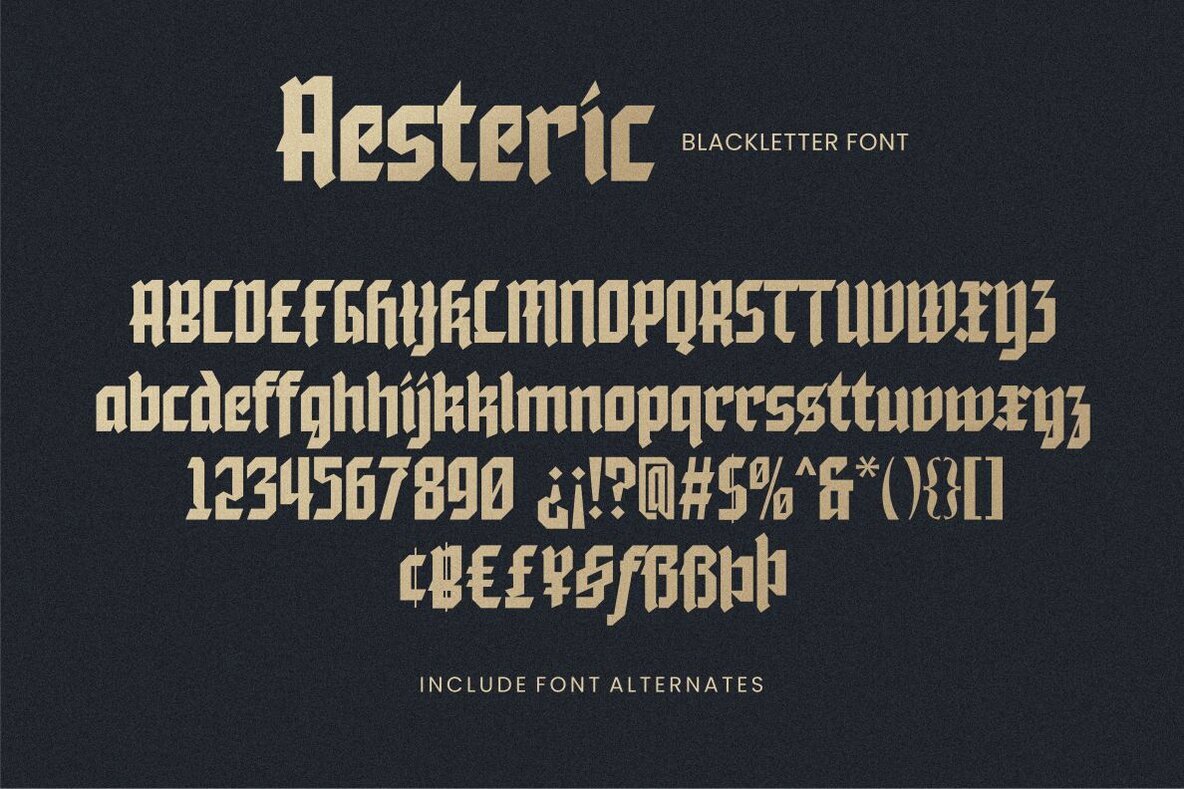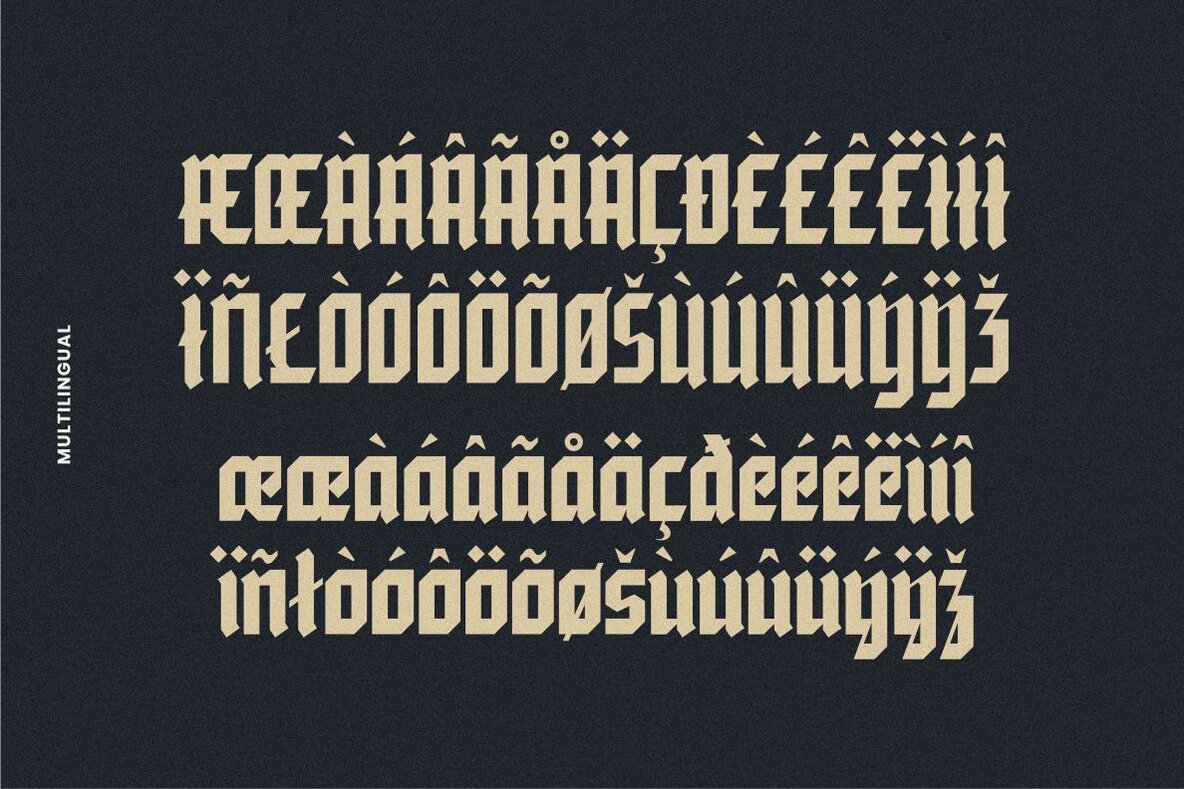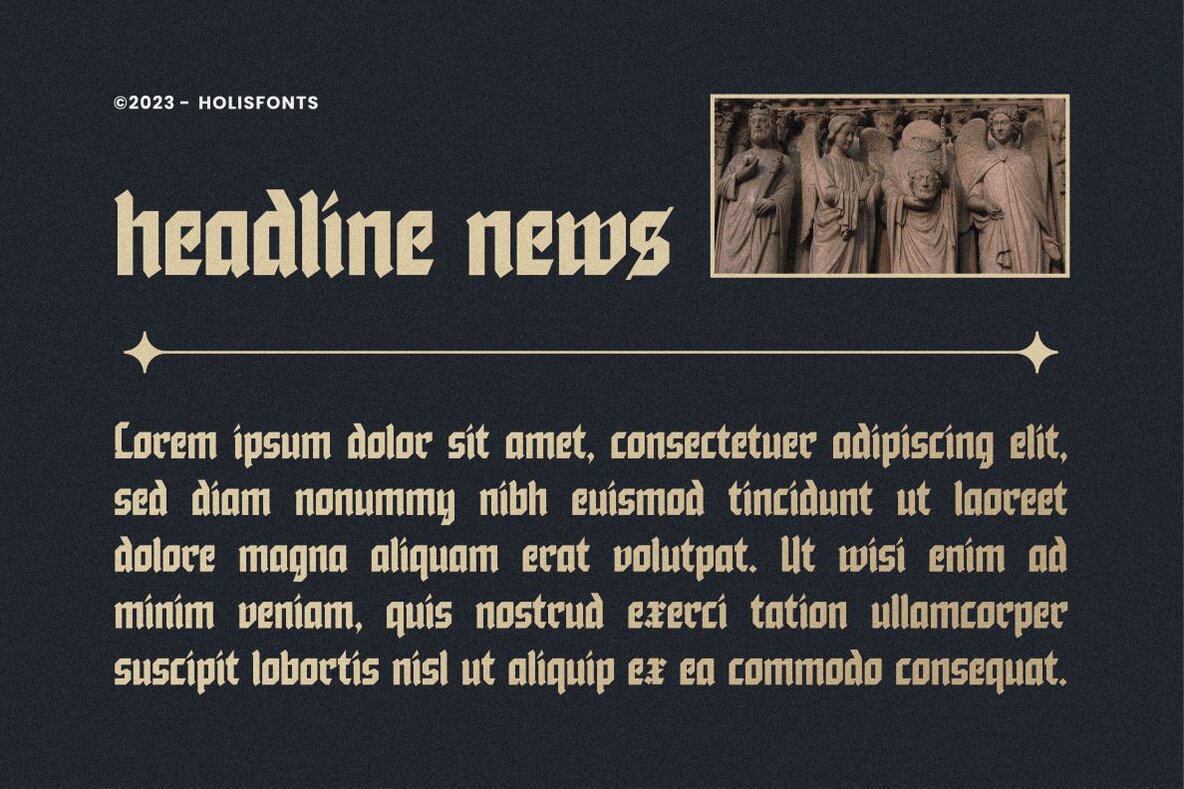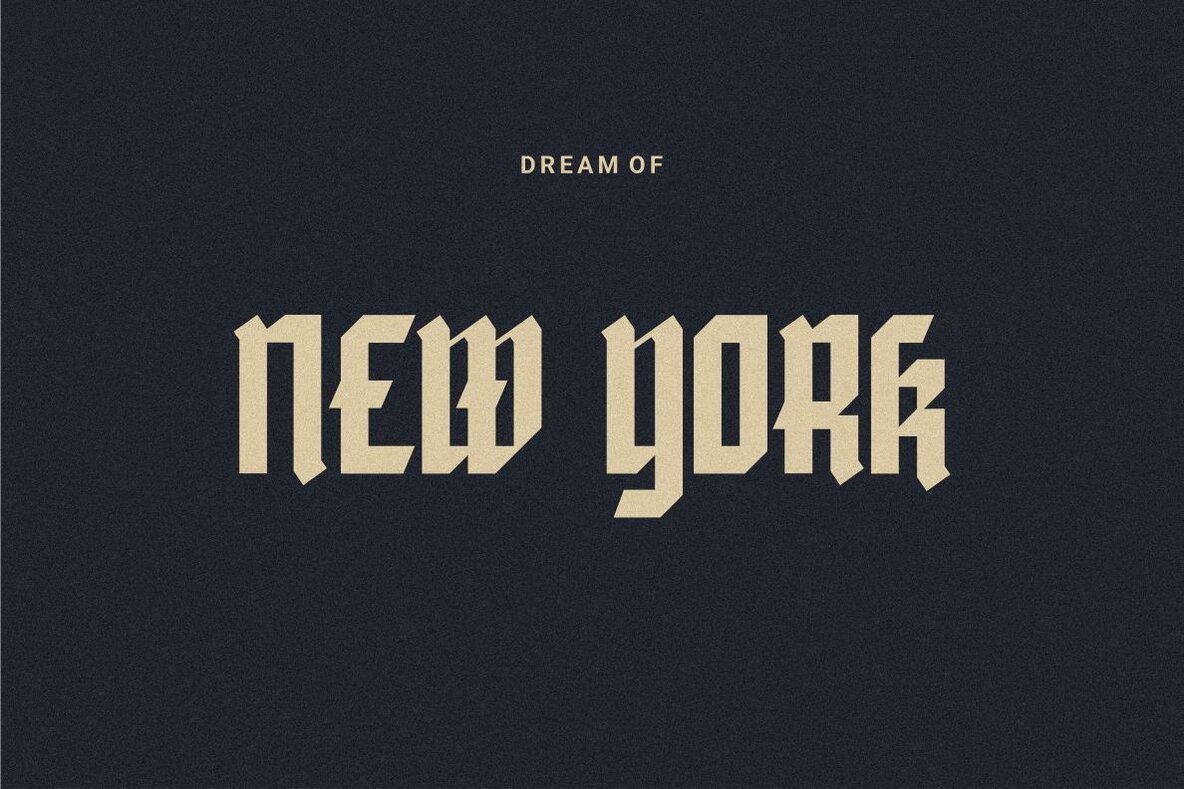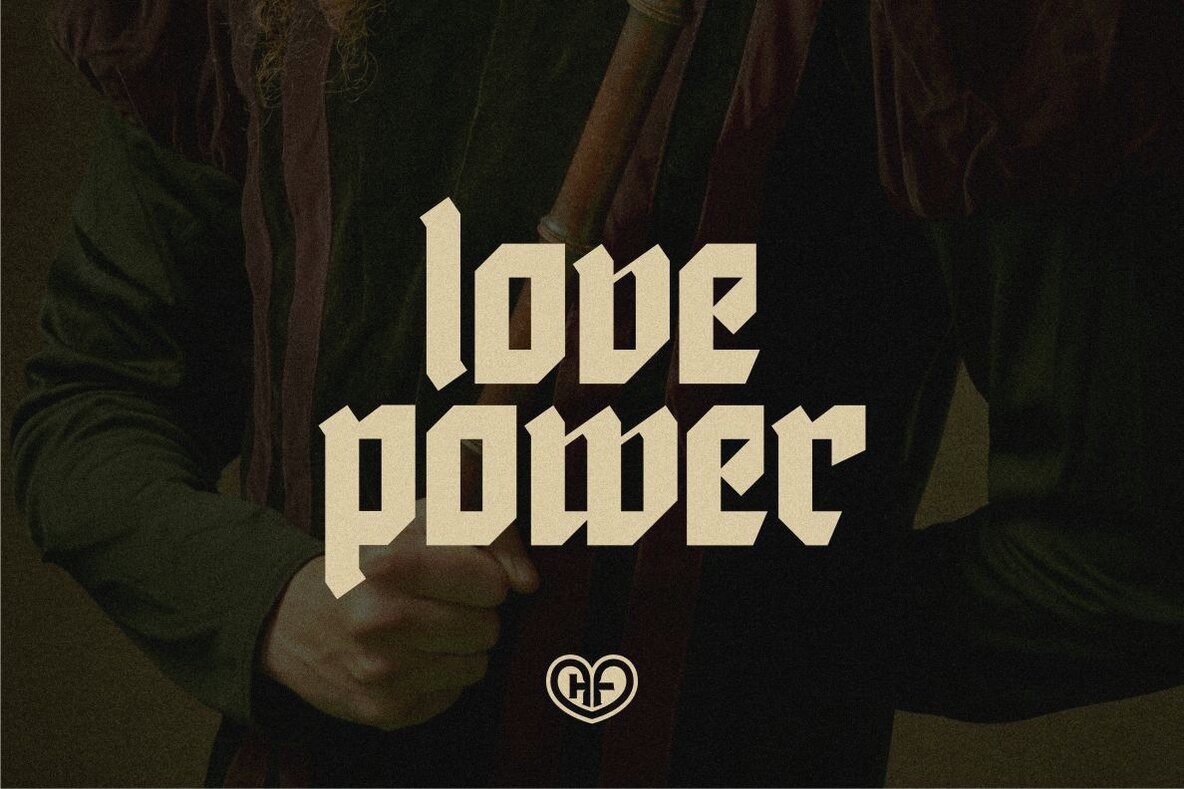
Aesteric Font
Aesteric
Aesteric is a captivating gothic blackletter style font that combines a dark, minimalist feel with multilingual support. This font includes alternate features for lowercase letters such as f, h, k, r, s, and t, making it versatile for various design projects. Ideal for logo designs, headlines, posters, book titles, film titles, music videos, and album covers, Aesteric brings a distinctive touch to your creative works.Aesteric: Gothic Blackletter with Minimalist Elegance